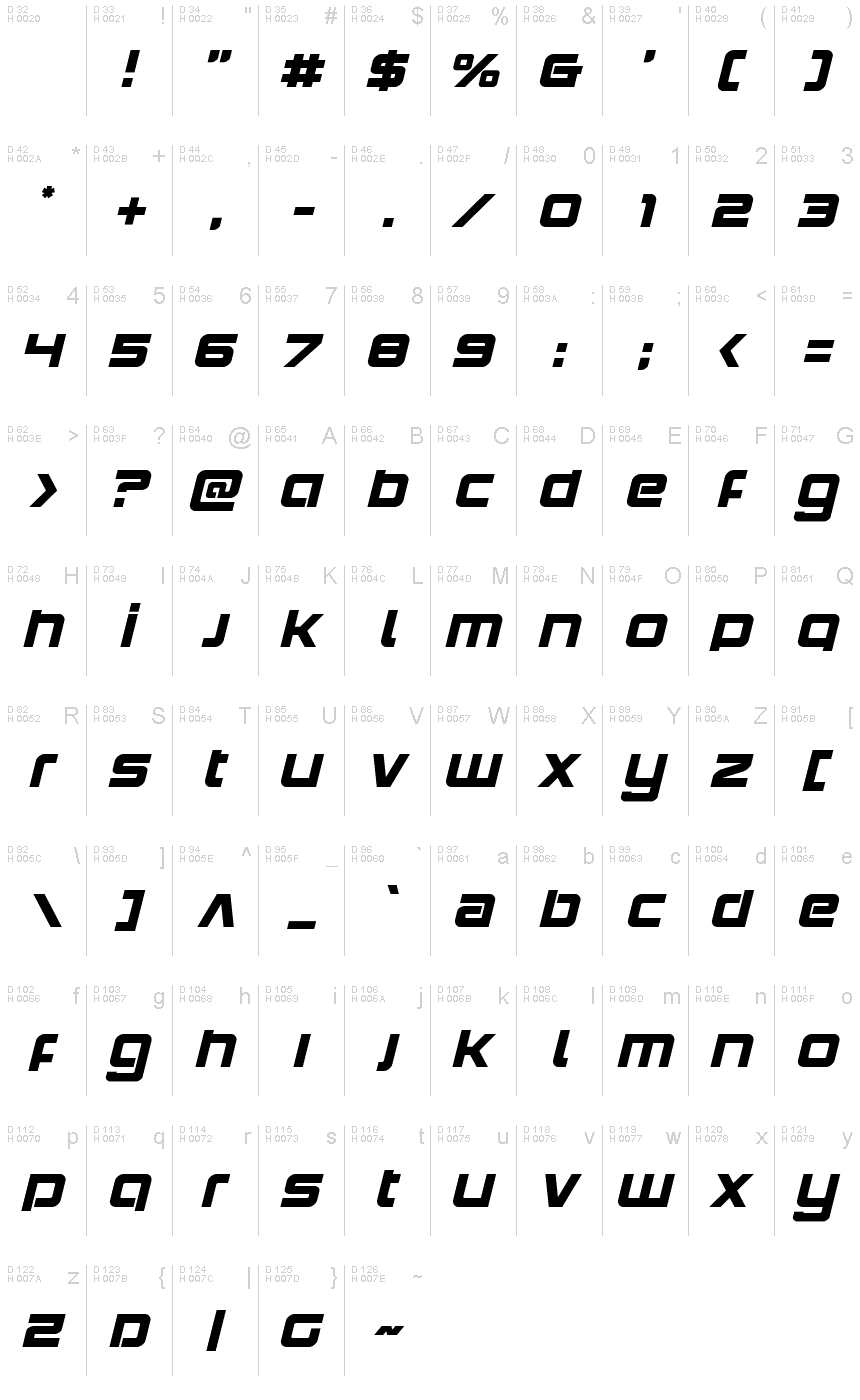
Yielding Timber Italic
Yielding Timber Italic is a bold and wide techno display font designed by Daniel Zadorozny. Its unique style and strong presence make it perfect for futuristic projects such as video games, movie titles, and tech-related logos. The italicized variation provides an added sense of movement and energy, making it suitable for sports branding or dynamic advertising campaigns. With its sleek design and attention-grabbing appearance, Yielding Timber Italic is sure to make a statement in any project that requires a bold and modern font choice.
Daniel Zadorozny